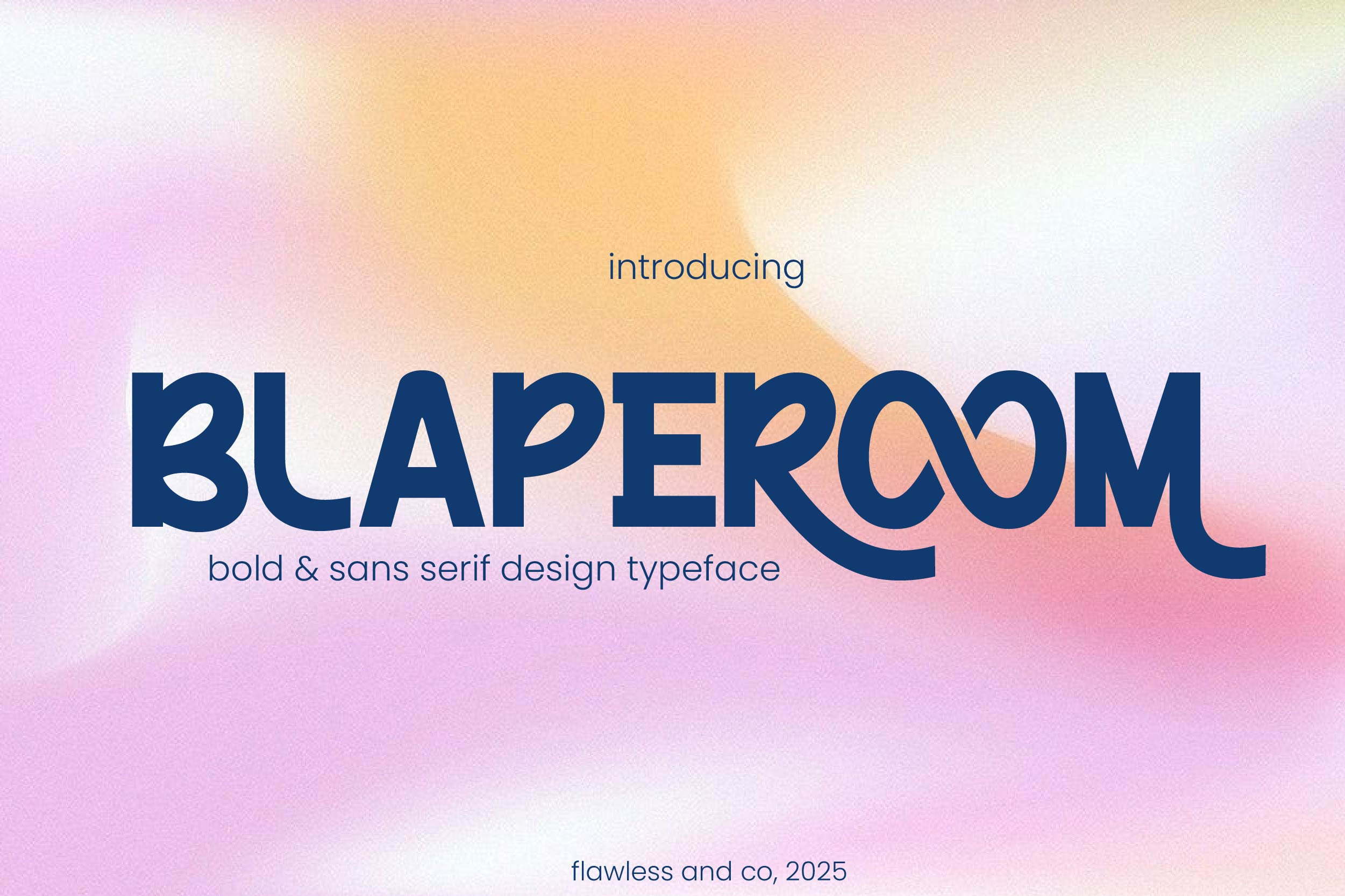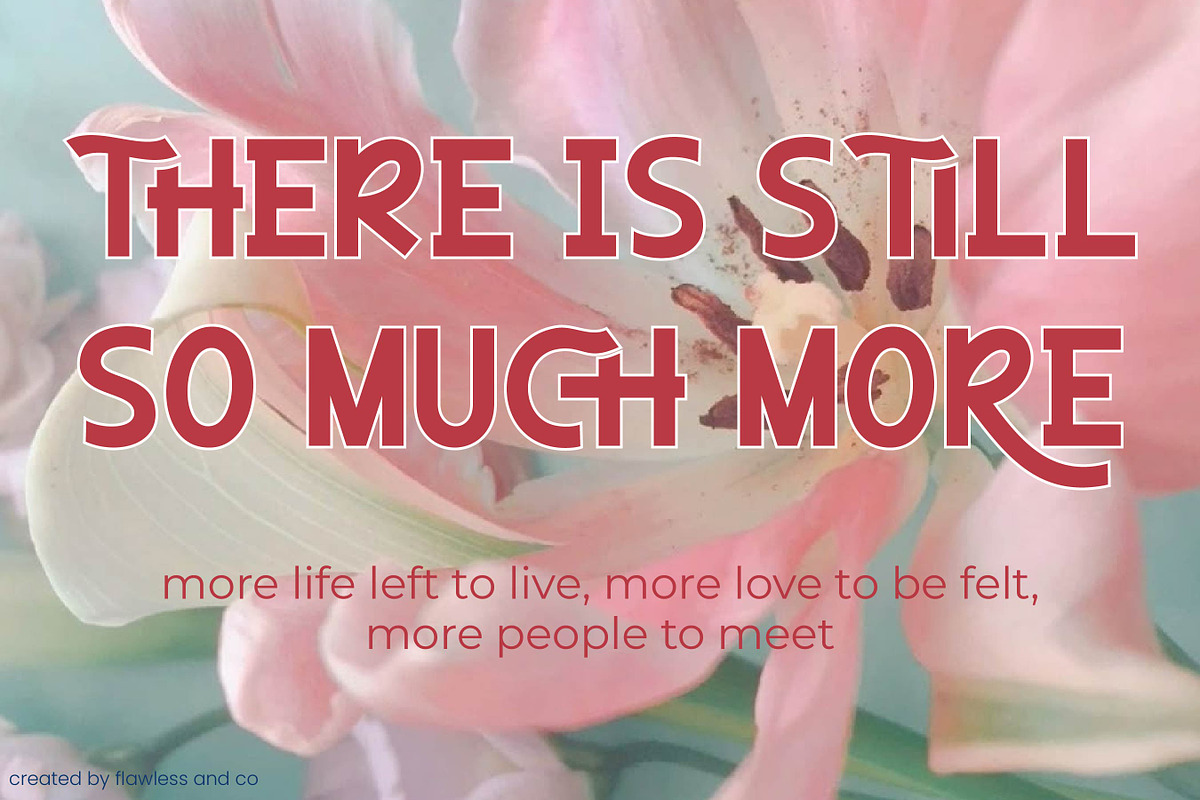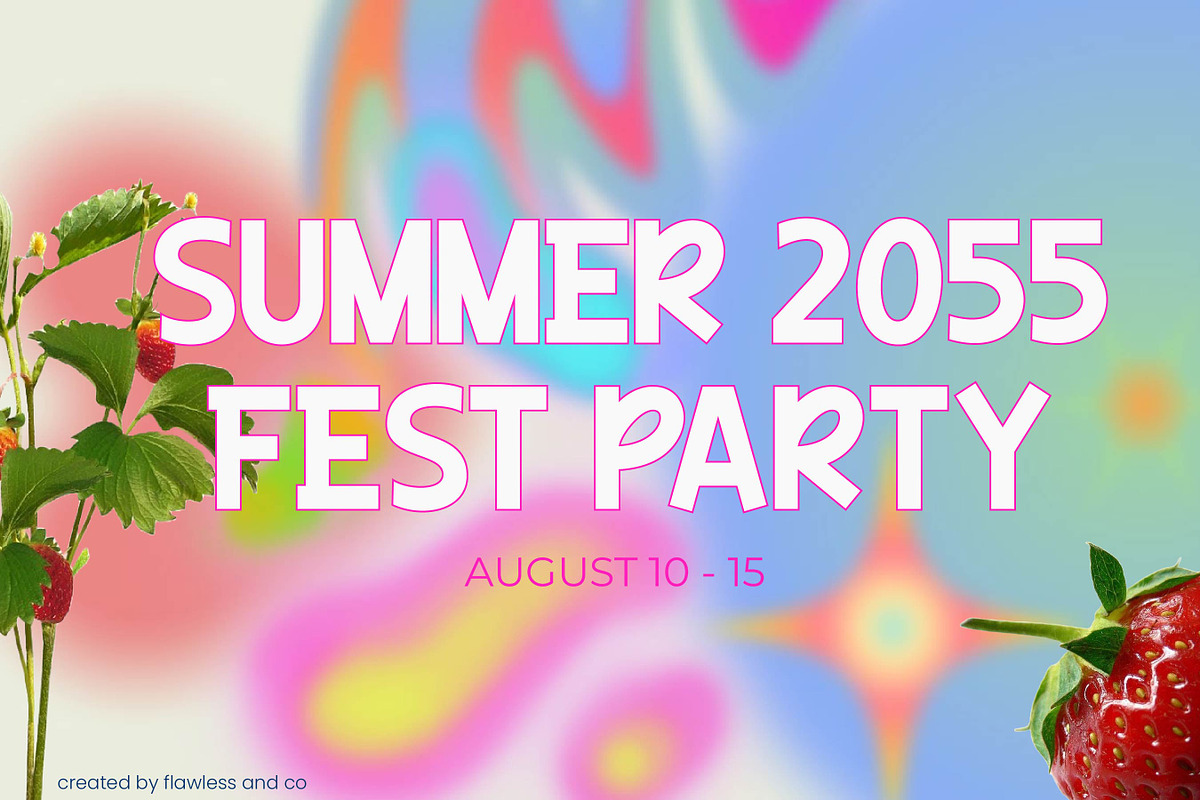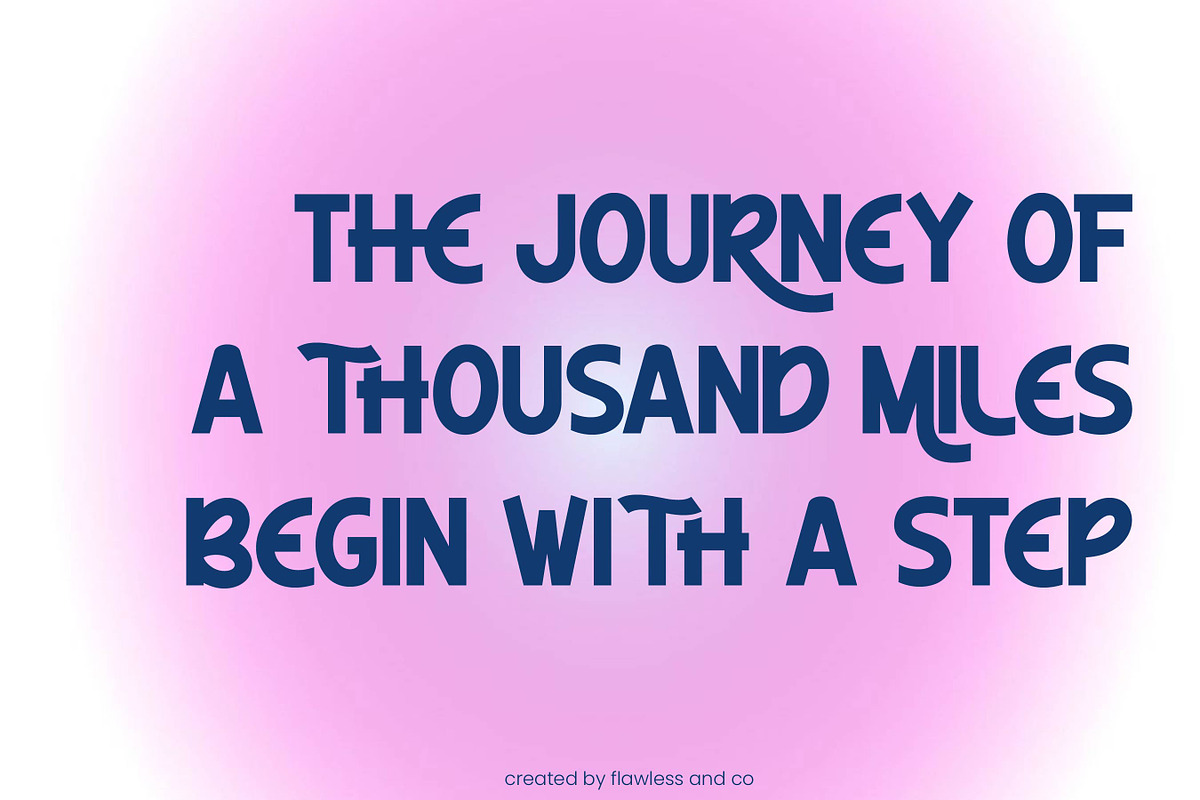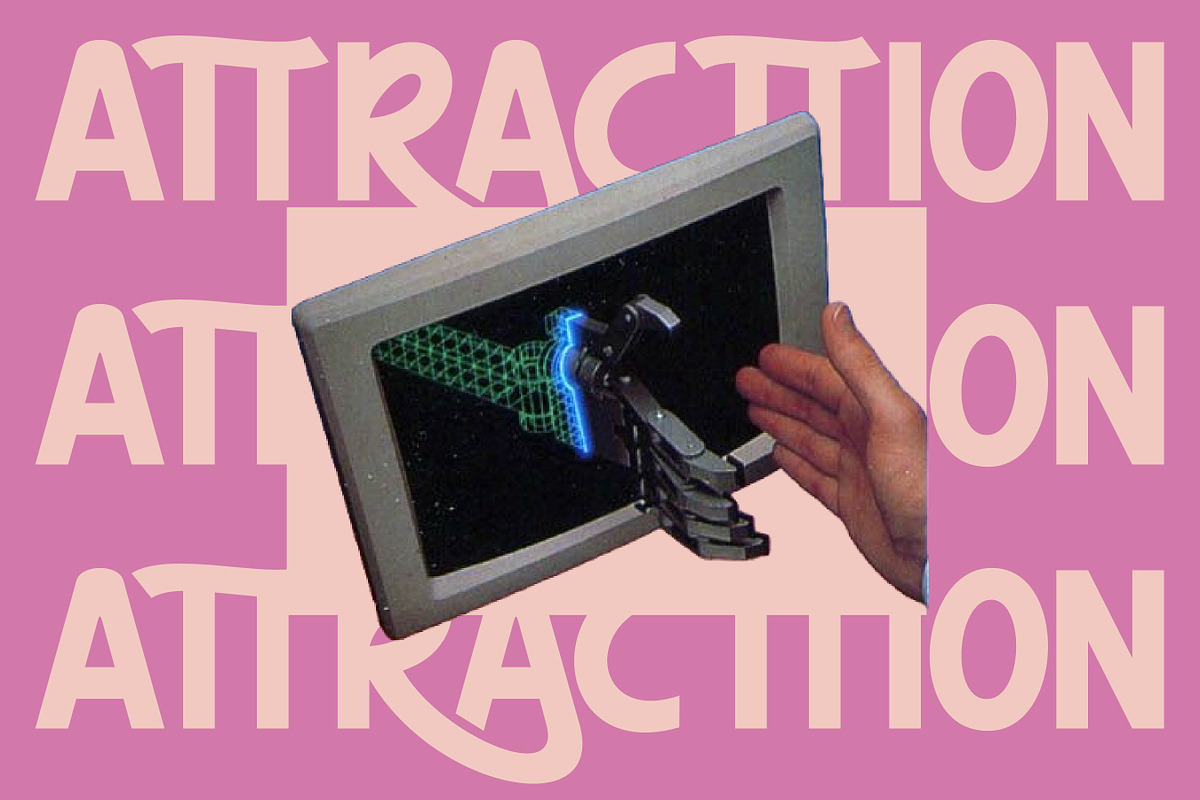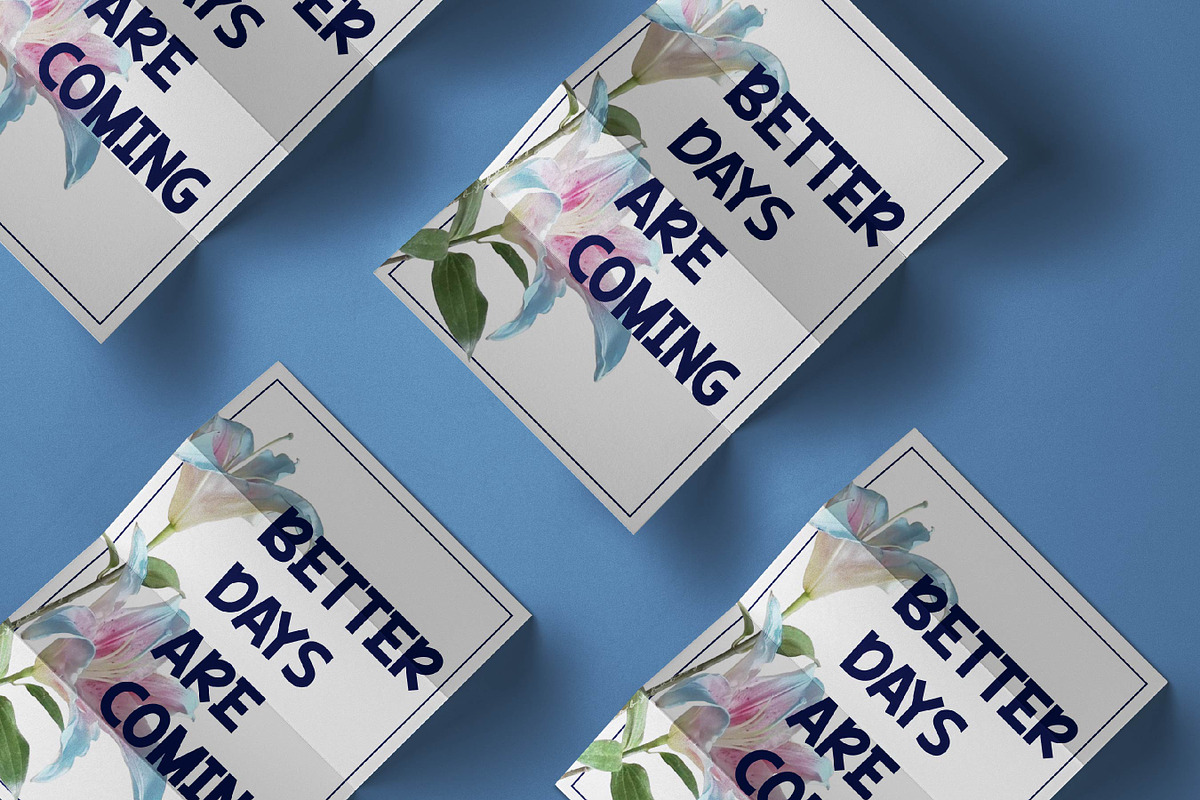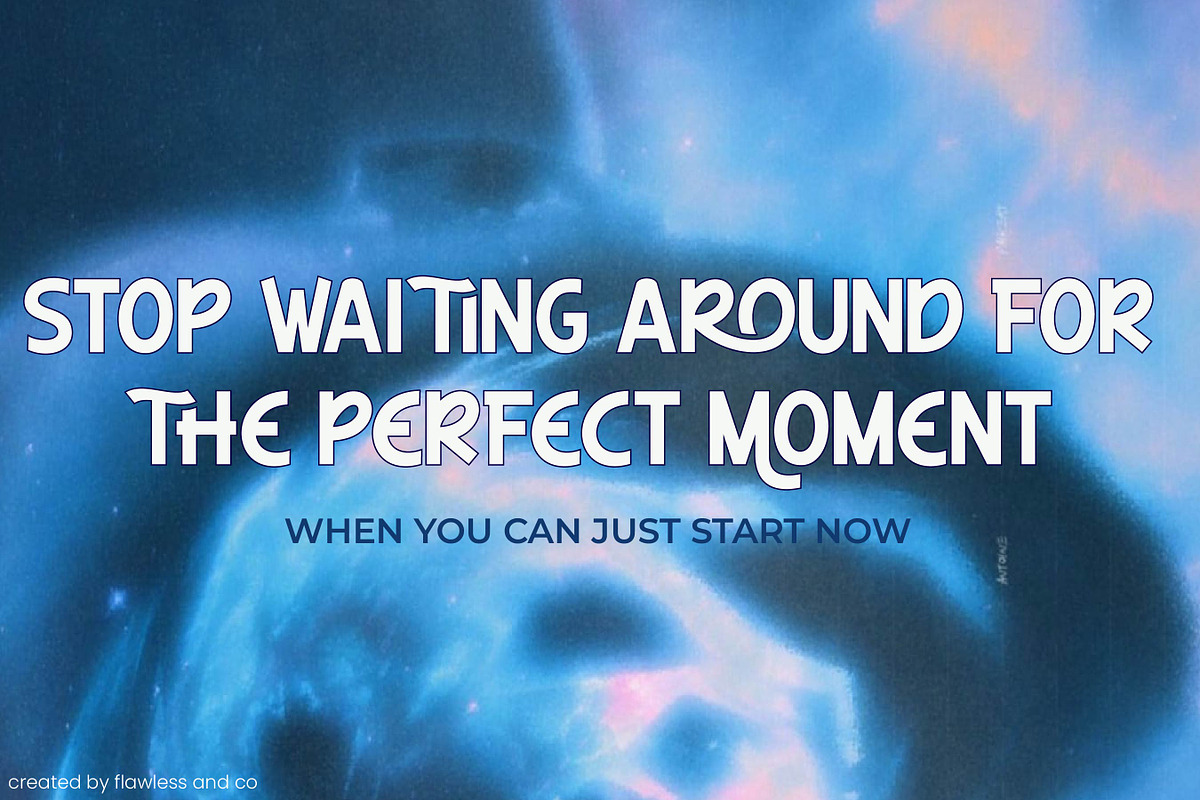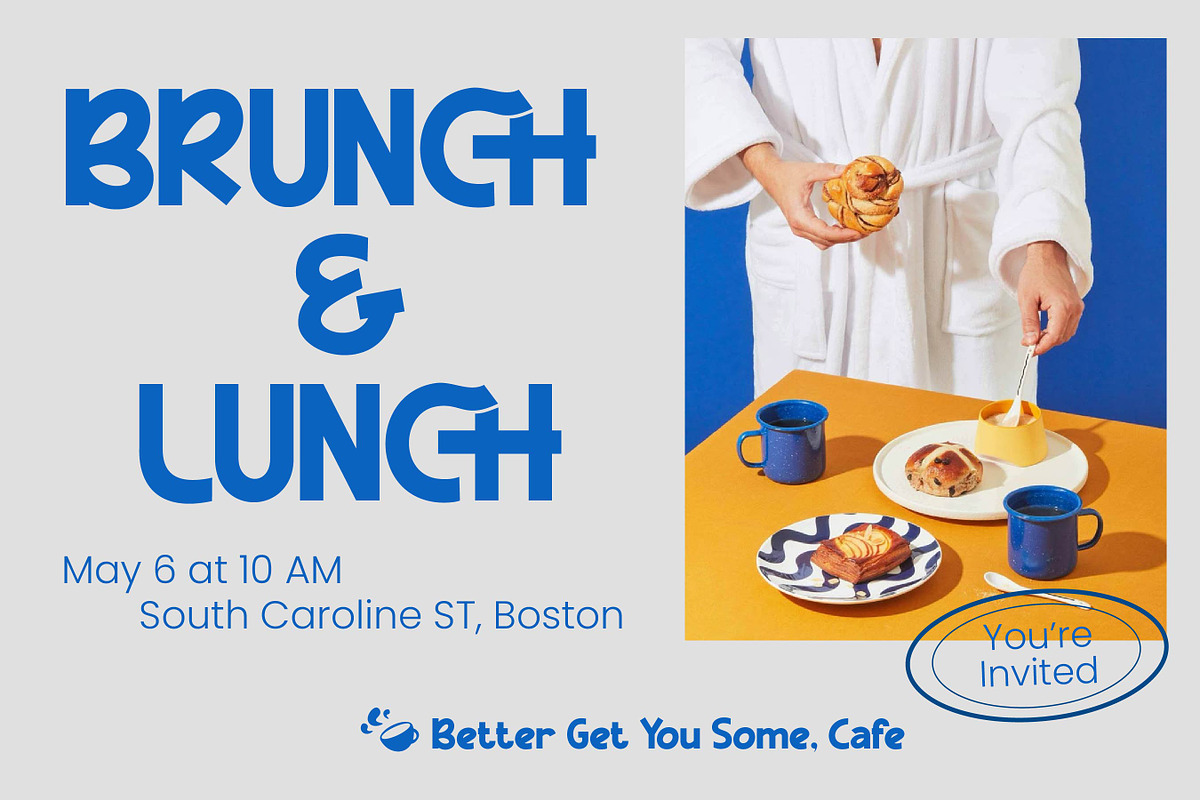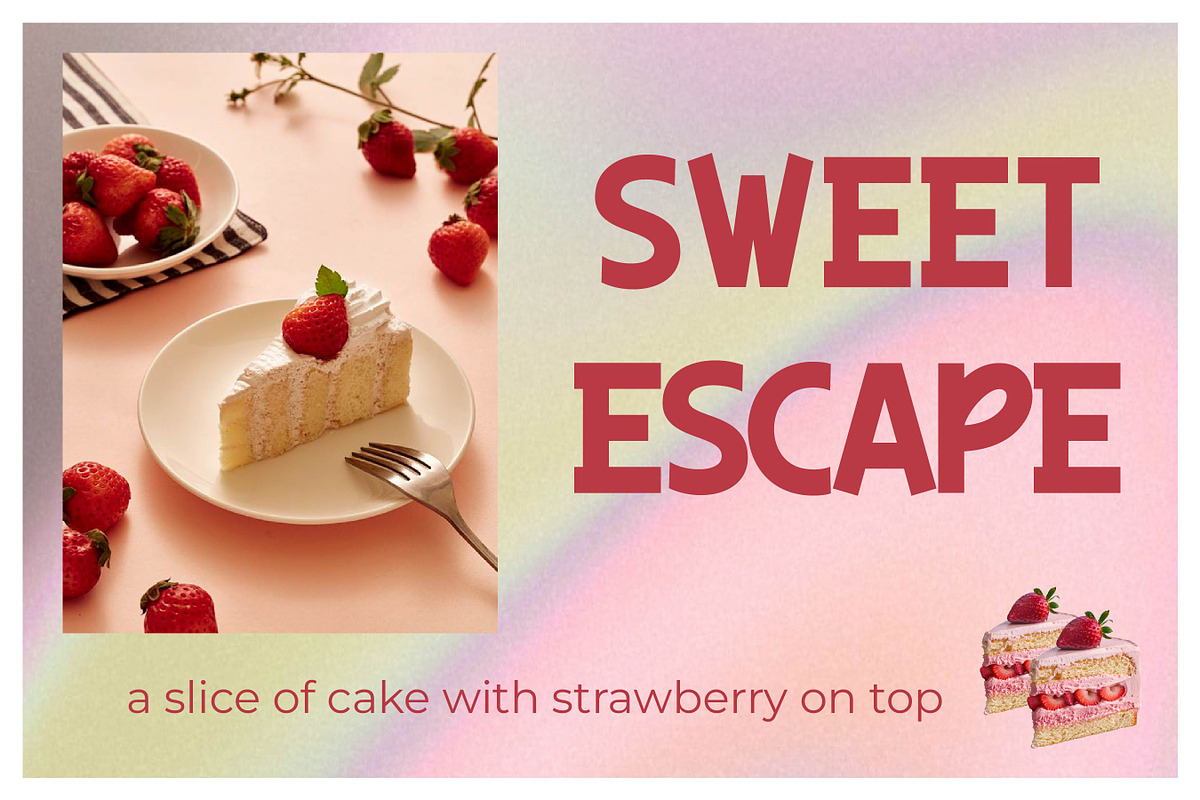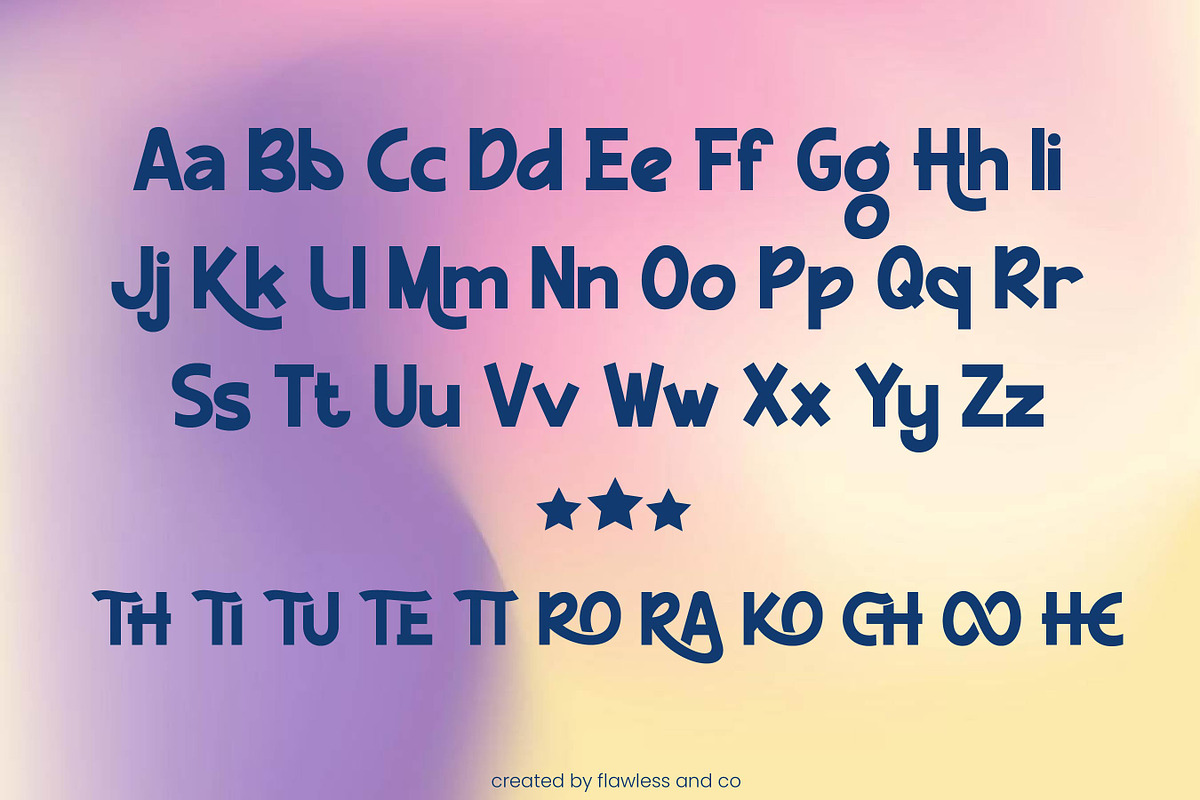
Blaperoom - Bold Sans Serif Font
Blaperoom – Bold Sans Serif Font
Blaperoom is a bold sans serif font that combines modern strength with clean simplicity. With its strong lines, geometric structure, and bold presence, Blaperoom is made to bring impact and clarity to every design. Perfectly suited for branding, posters, editorial layouts, packaging, and even playful design themes, Blaperoom offers both versatility and character. Its bold, straightforward shapes provide excellent readability and make it a great choice for eye-catching compositions.Blaperoom also shines in kids-related projects. Its clean and chunky letterforms are easy to read and bring a fun, energetic vibe to children’s books, games, apparel, educational materials, and more—adding charm without losing structure.
Each letter is crafted to deliver a modern, confident look while still feeling approachable and dynamic. Whether you're working on a bold brand concept or a cheerful design for kids, Blaperoom is ready to elevate your work with style and strength.
Make your design stand out with Blaperoom—a bold sans serif typeface that’s as impactful as it is adaptable, for both professional and playful design projects.
Who Should Use Blaperoom?
Blaperoom is perfect for designers, brand developers, content creators, and educators looking for a bold, versatile typeface that stands out with confidence. Whether you're crafting high-impact branding, designing posters and packaging, or creating fun and clear visuals for children’s content, Blaperoom delivers strong readability with modern style. It’s ideal for anyone who needs a font that balances boldness and friendliness—professional enough for branding, yet playful enough for kids-related design.
A Must-Have Font for Brand Creators and Designers
Blaperoom is an essential typeface for modern brand creators and designers who want to make a bold, lasting impression. Its clean lines and strong sans serif structure bring clarity and strength to any visual identity. Whether you're building logos, brand kits, packaging, or digital content, Blaperoom ensures your message is both memorable and professional—with just the right touch of fun for kids’ visuals too.
Why Choose BLAPEROOM for Brand Projects?
Because your brand deserves a typeface that reflects strength, clarity, and versatility. Blaperoom isn’t just a bold sans serif font — it’s a dynamic identity creator. With its strong lines, geometric structure, and impactful presence, Blaperoom delivers the bold statement your branding needs to thrive. Whether you’re designing for corporate logos, vibrant marketing campaigns, or playful, energetic projects, Blaperoom helps your brand:
- Make a bold, confident impression with its strong and geometric design
- Stand out with modern, clean shapes that are both eye-catching and professional
- Maintain clarity and readability, ensuring your brand message is communicated effectively
- Connect with a wide audience, from serious business sectors to fun, creative niches
For designers looking to bring both strength and warmth to their brand — Blaperoom is the smart, adaptable choice.